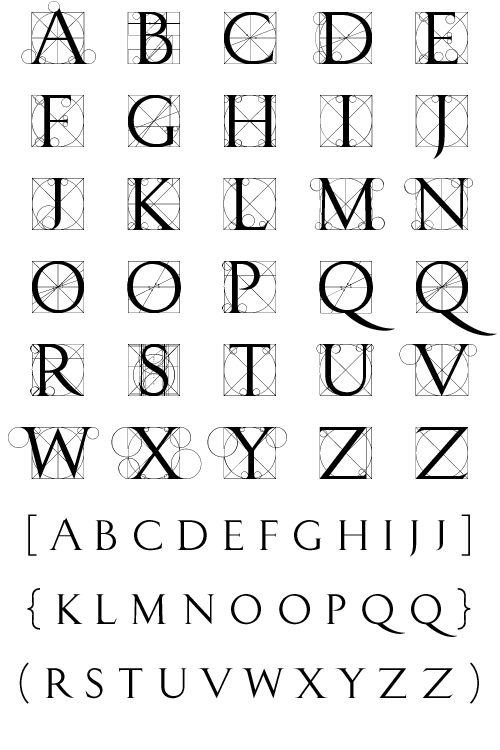
Pacioli
This font is based on an alphabet published by Luca Pacioli in his 1509 mathematical treatise De divina proportione. In this book, Pacioli describes how to build the Roman alphabet geometrically using lines, squares and circles. Pacioli was not the first or the last man in his era to describe the building of letters mathematically. Felice Feliciano did this before Pacioli, and Albrecht Dürer further developed these forms years after. According to Pacioli, the thick strokes should be 1/9th of the height, and the thin strokes should have 1/2 the weight of the thick strokes. I felt that this beautiful alphabet needed to be restored to its full geometric glory and set out to construct an accurate replica using Pacioli's instructions. Included in the font you'll find the letters that have the grid overlay and also the letters without the grid. The letters J, W, U, and Z were not included in the book, so I have created my own versions of these characters that fit into Pacioli's grid. Pacioli shows two different Os in the book, so I have included the second O as well as a second J, Q, and Z as OpenType stylistic alternates. Also included in the font are border patterns and a fleuron taken from the cover of the book. Year Designed: 2007 Weights: Regular Formats Available: OpenType Price: Single weight - $18.95 USD Purchase Now: MyFonts.com YouWorkForThem |